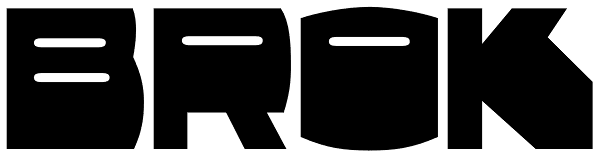
Brok
Brok appeared in 1925 as powerful characters in a magnificent portrait poster cut in wood by Chris Lebeau for the Willem Brok Gallery in Hilversum, Holland. Brok works its figure-ground magic when negative leading reduces the white stripes that...